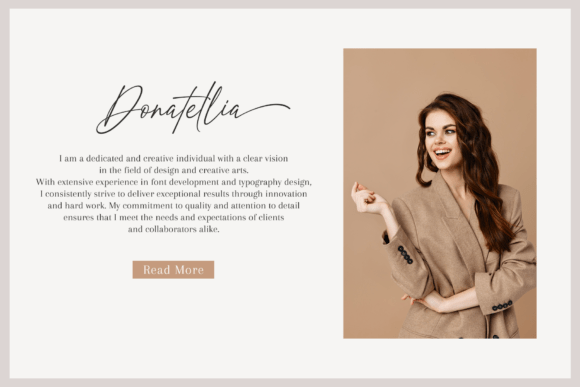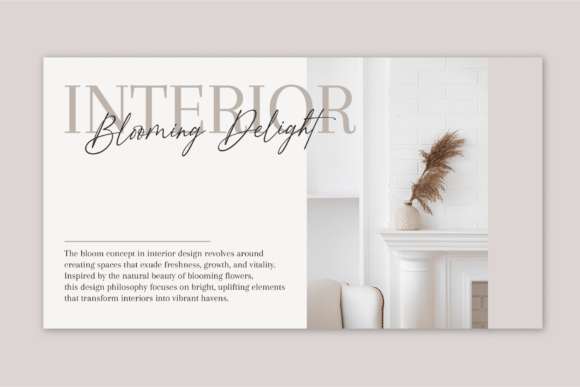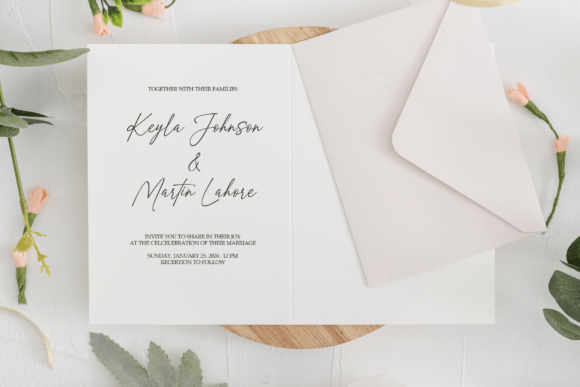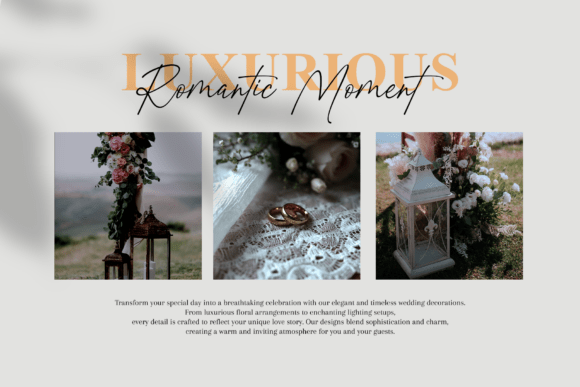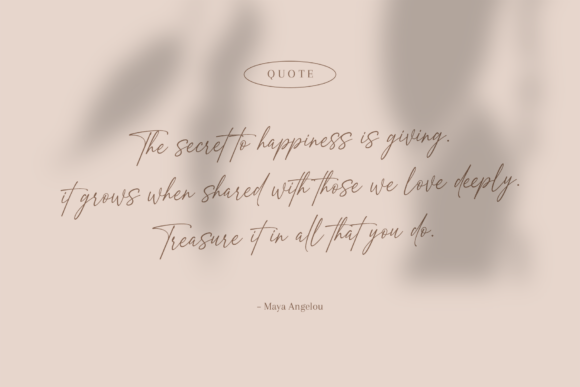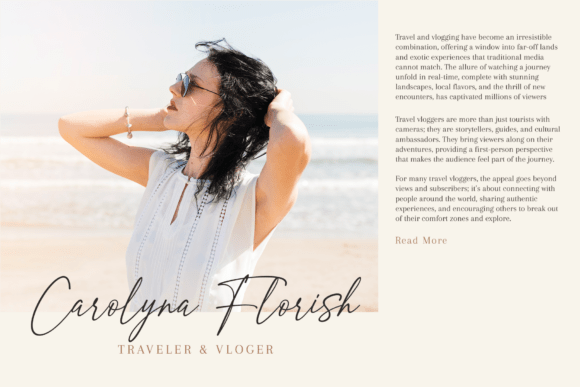
Introduction to Sending Hopes Font Font
Fonts play a crucial role in design, and the Sending Hopes Font font is a typeface that brings both character and versatility to any project. Whether you’re working on a branding project, a website, or a print design, the Sending Hopes Font font offers a unique style that can elevate your work.
Sending Hopes is a modern and cute calligraphy script that blends elegance with a playful charm.
Designed with smooth, flowing lines, this font brings warmth and personality to any design Itβs perfect for invitations, branding, social media graphics, packaging, and more.
Key Features of Sending Hopes Font Font
Why Choose Sending Hopes Font Font?
The Sending Hopes Font font is more than just a typeface β it’s a design tool that helps you communicate your message with style and clarity. Its unique character set and versatile design make it suitable for a wide range of applications, from elegant invitations to bold headlines.
With its carefully crafted letterforms and balanced proportions, the Sending Hopes Font font ensures readability and visual appeal across all mediums.
What makes Sending Hopes Font font special?
The Sending Hopes Font font stands out with its unique design, exceptional readability, and versatility across various design applications.